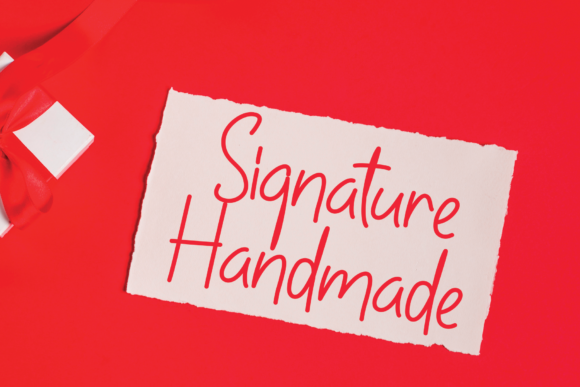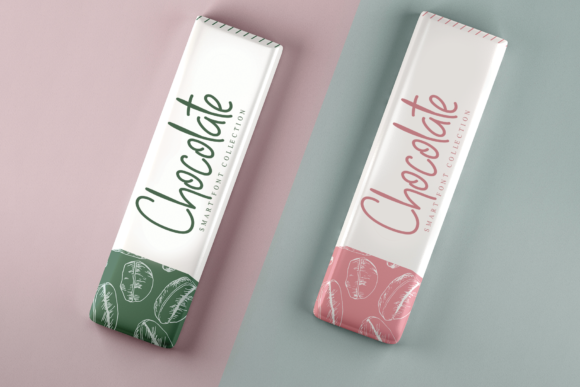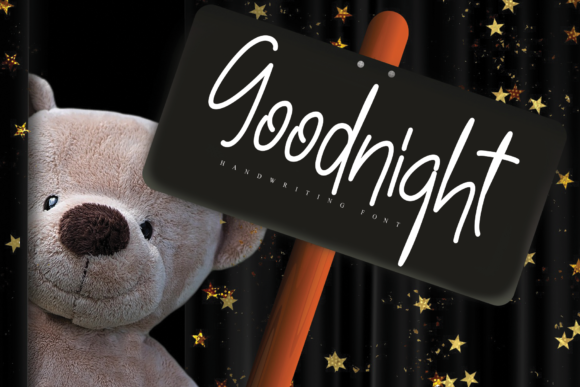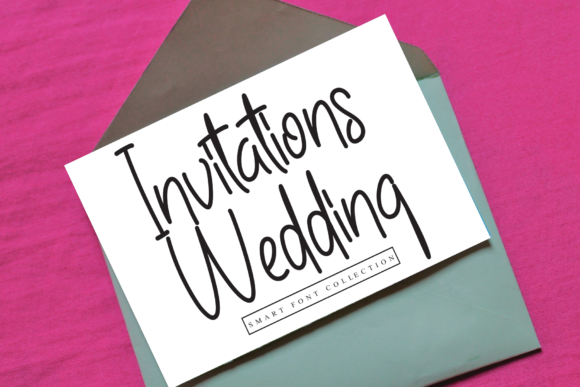
Discover the Charm of Amsterdam Mellodyna Font: A Sweet Handwritten Delight
Are you on the hunt for a font that adds a touch of warmth and personality to your designs? Look no further than the Amsterdam Mellodyna Font. This sweet handwritten font is making waves in the design community, and for good reason. With its relaxed flow and natural, unique style, Amsterdam Mellodyna is the perfect addition to any design project. In this article, we’ll dive into the world of Amsterdam Mellodyna, exploring its features, benefits, and uses, as well as provide tips and inspiration for designers and crafters.
What is Amsterdam Mellodyna Font?
Amsterdam Mellodyna is a beautiful, handmade font that boasts a relaxed and effortless vibe. Its natural, flowing script is reminiscent of handwritten notes and letters, adding a personal touch to any design. The font’s unique style makes it incredibly versatile, suitable for a wide range of projects, from branding and packaging to invitations and digital media.
Key Features of Amsterdam Mellodyna Font
- Handwritten style: Amsterdam Mellodyna features a genuine, handwritten look that adds a touch of warmth and personality to your designs.
- Relaxed flow: The font’s flowing script has a relaxed, natural feel that’s perfect for creating a sense of calm and approachability.
- Unique style: Amsterdam Mellodyna’s distinctive style sets it apart from other fonts, making it a great choice for designers looking to add some individuality to their work.
- Versatile: With its wide range of applications, Amsterdam Mellodyna is an excellent addition to any designer’s toolkit.
Benefits of Using Amsterdam Mellodyna Font
- Adds a personal touch: Amsterdam Mellodyna’s handwritten style adds a personal, human touch to your designs, making them more relatable and engaging.
- Creates a unique brand identity: With its distinctive style, Amsterdam Mellodyna can help you establish a strong brand identity that sets you apart from the competition.
- Perfect for creative projects: Whether you’re working on a branding project, creating invitations, or designing digital media, Amsterdam Mellodyna is a great choice for adding a touch of creativity and whimsy.
Using Amsterdam Mellodyna Font in Your Designs
- Branding and packaging: Use Amsterdam Mellodyna to create eye-catching logos, labels, and packaging that adds a personal touch to your products.
- Invitations and stationery: Add a touch of elegance and sophistication to your invitations, greeting cards, and stationery with Amsterdam Mellodyna.
- Digital media: Use Amsterdam Mellodyna in your digital designs, such as social media graphics, blog posts, and website headers, to add a touch of personality and whimsy.
Tips for Working with Amsterdam Mellodyna Font
In conclusion, Amsterdam Mellodyna Font is a sweet handwritten font that adds a touch of warmth and personality to any design. With its relaxed flow, natural style, and unique features, it’s the perfect choice for designers and crafters looking to add a personal touch to their work. Whether you’re working on a branding project, creating invitations, or designing digital media, Amsterdam Mellodyna is a versatile and beautiful font that’s sure to inspire.